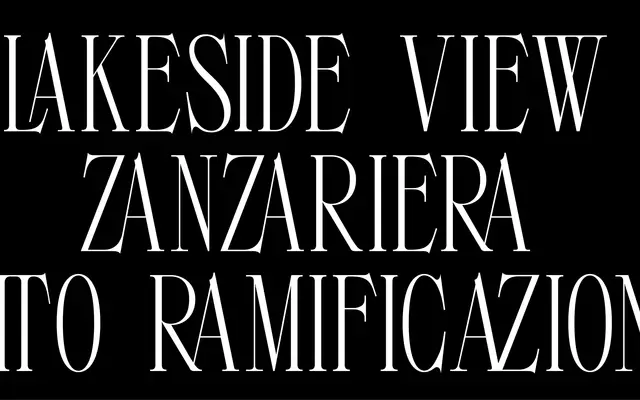
Longinus
An uppercase display typeface by Domenico Barréto, directly referencing the title sequences of Neon Genesis Evangelion.
Designed for logos and large-scale titles, it brings sleek, bold letterforms with a futuristic edge drawn from the dramatic aesthetic of anime intro cards. Despite its single weight and uppercase-only construction, the glyph set is broad, covering Latin Extended, Cyrillic, diacritics, ligatures, multiple numeral sets and a wide range of symbols. Best suited to branding and headline work where a bold, cinematic tone is needed.
An uppercase-only display typeface with clean, bold letterforms and a futuristic aesthetic, placing it firmly in the display category with geometric tendencies drawn from anime title card design.